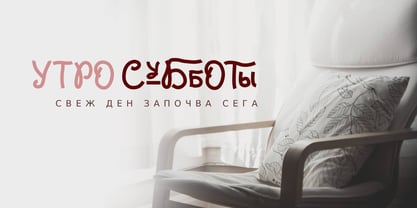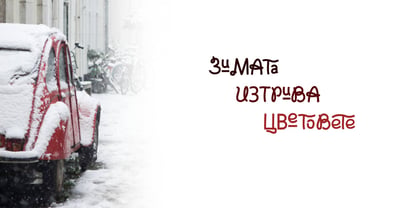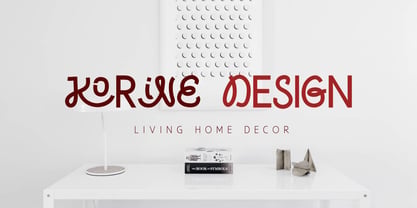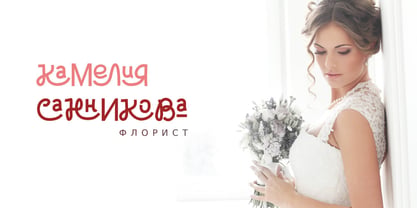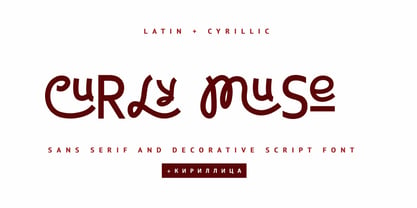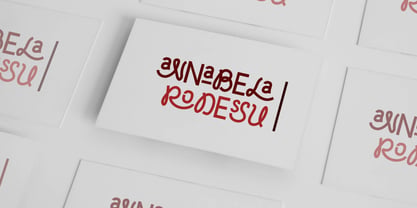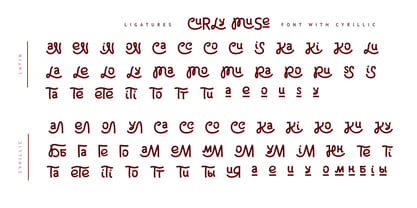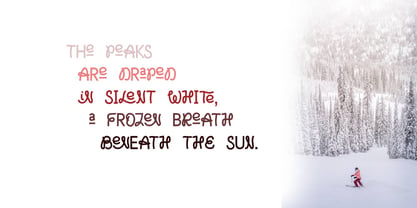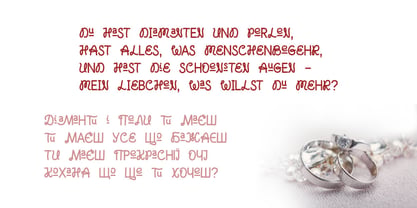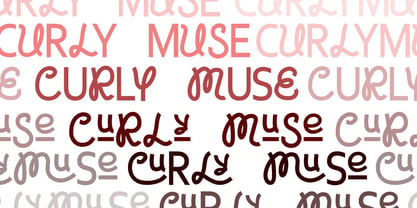
Curly Muse Cyrillic Font is an expressive decorative font that will add personality to your designs
Our expressive handwritten font is designed to evoke emotion and add personality to your designs. With its natural, flowing lines and decorative flourishes, this font is perfect for projects that require a touch of warmth and authenticity.
Use it for:
Quotes and inspirational graphics: Create visually appealing and shareable content.
Handmade crafts: Add a personal touch to your handmade products.
Children's books and illustrations: Bring a sense of fun and whimsy to your designs.
Multilingual Support for 82 languages: Abaza, Avar, Adyghe, Afrikaans, Agul, Albanian, Asturian, Basque, Belarusian, Bulgarian, Breton, Buryat, Valencian, English, Estonian, Faroese, Finnish, French, Frisian, Gaelic (Scottish), Galician, German, Hungarian, Icelandic, Indonesian, Ingush, Irish, Italian, Kabardino-Circassian, Karakalpak (Lat.), Karachay-Balkar, Karelian, Kazakh, Komi-Permyak, Komi-Zyryan, Kurdish (Lat.), Kumyk, Lak, Latin, Latvian, Lezgin, Lithuanian, Maori, Mongolian (Kyrgyz.), Mordovian-Erzya, Mordovian-Moksha, Nogai, Norwegian, Occitan, Polish, Portuguese, Rhaetian-Romance, Romanian, Russian, Rutul, Sami Lule, Slovak, Slovenian, Spanish, Swedish, Tabasaran, Tat, Tswan, Tuvinian, Turkmen (Lat.), Ukrainian, Uzbek (Lat.), Valencian, Welsh
Curly Muse Cyrillic